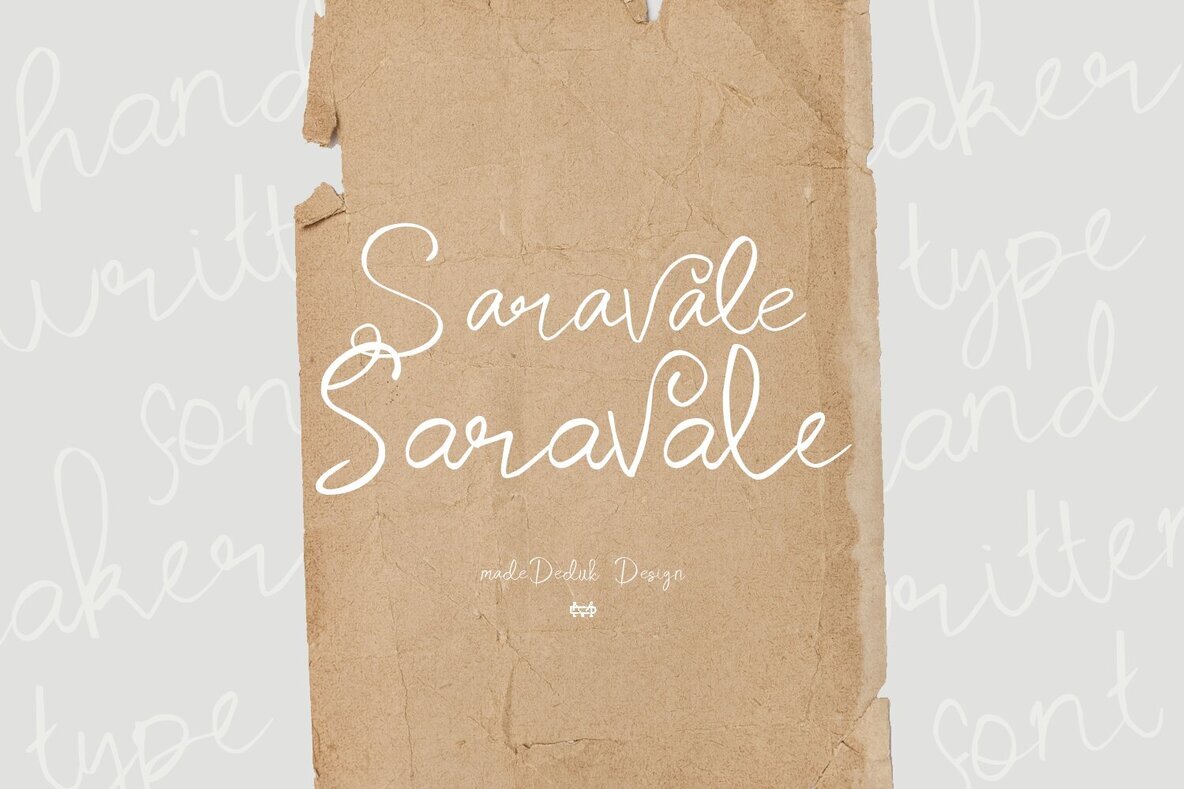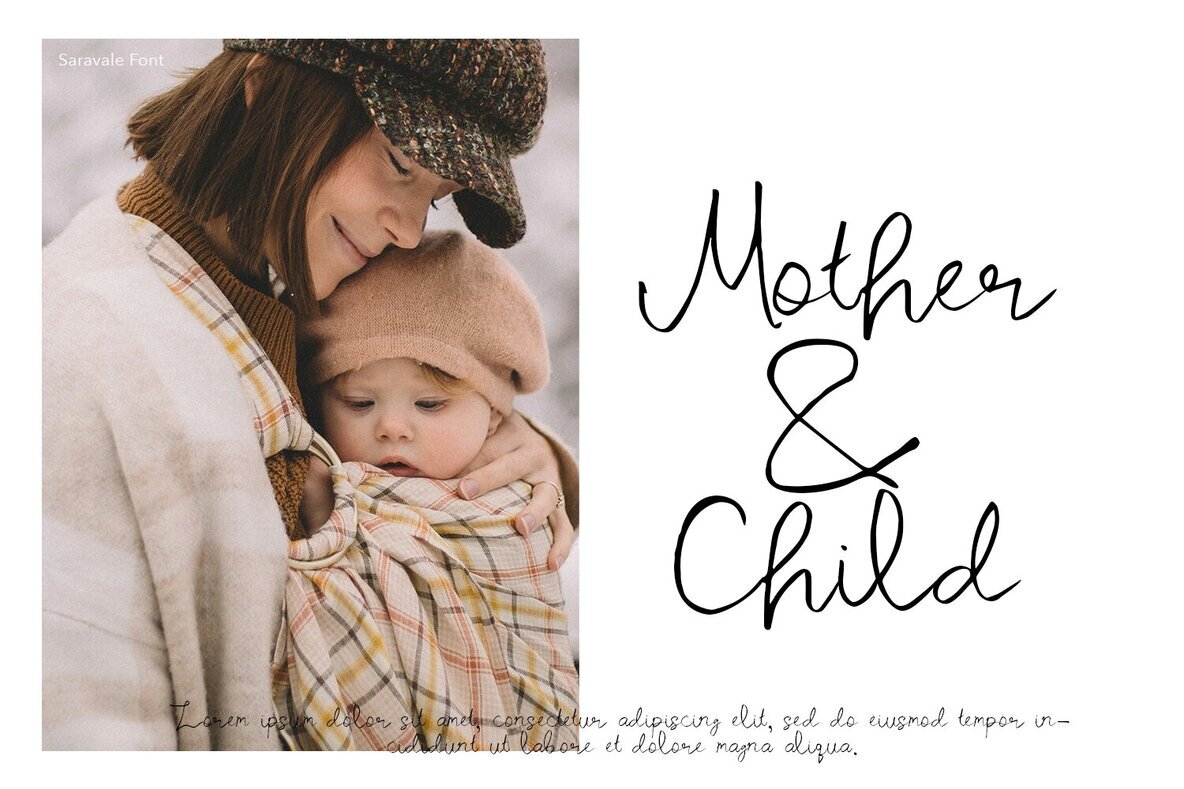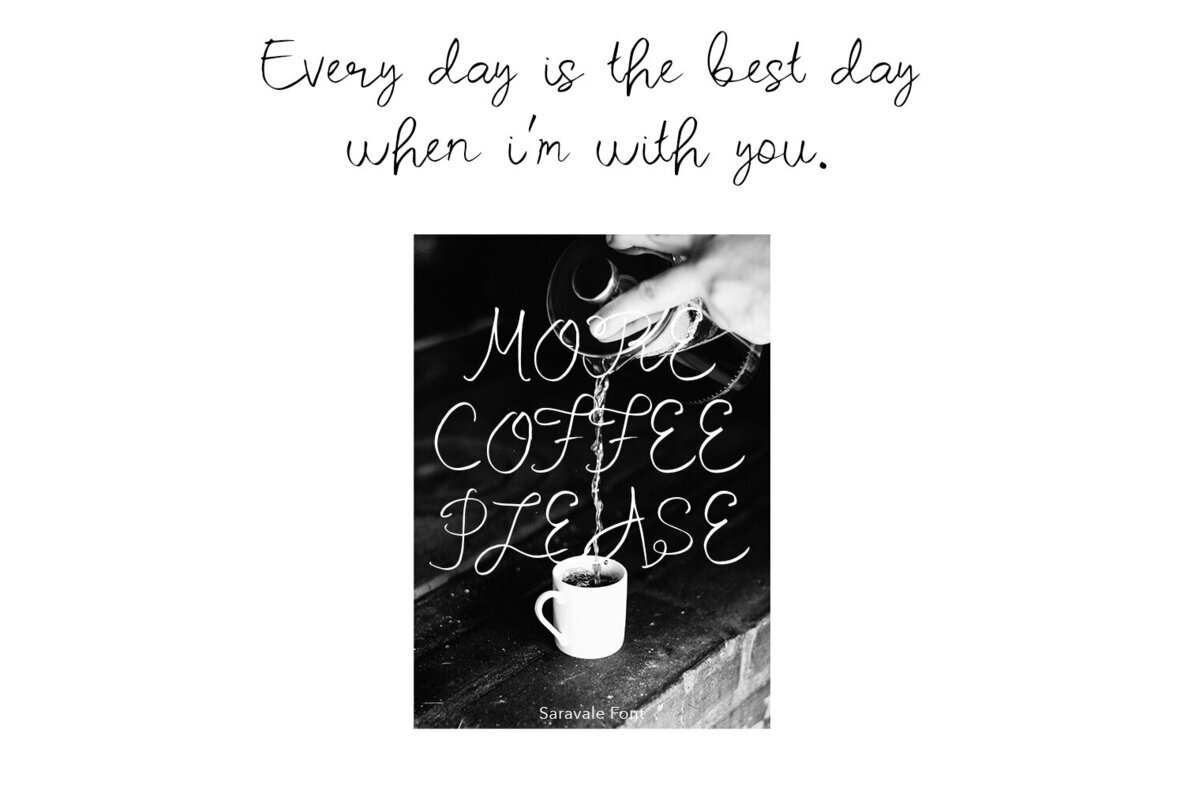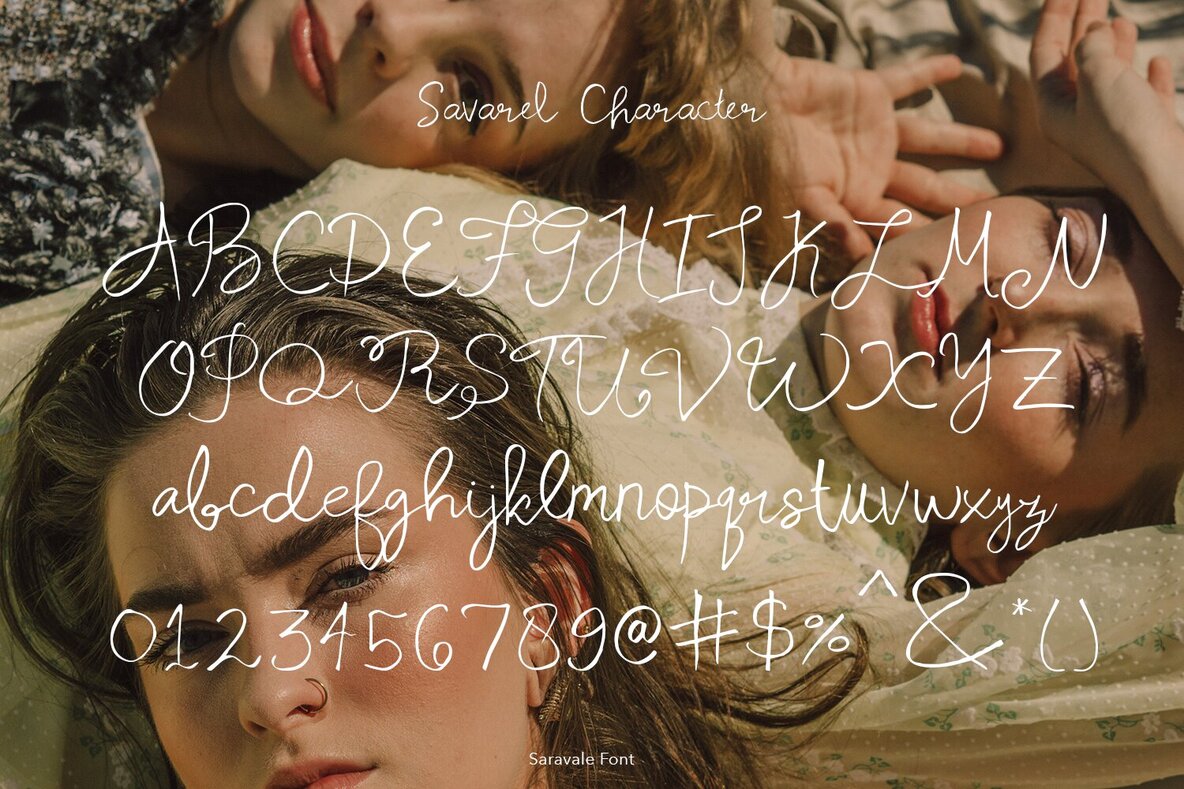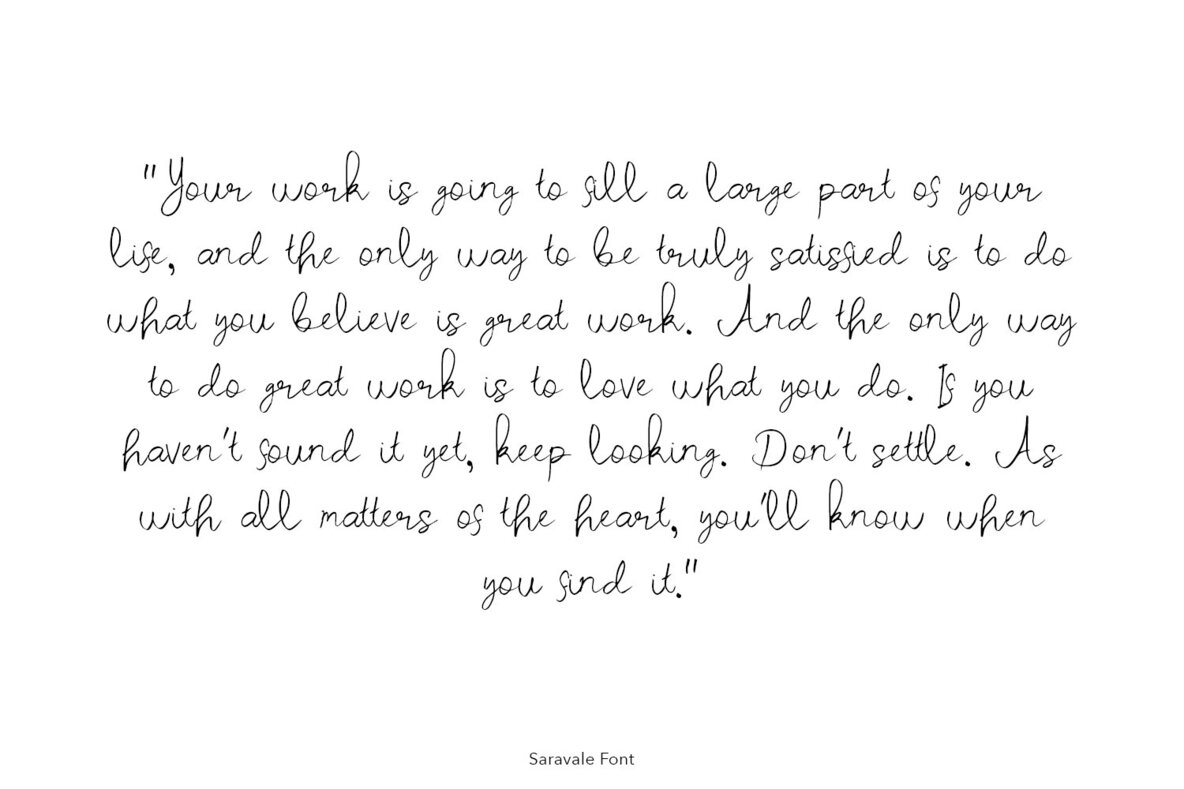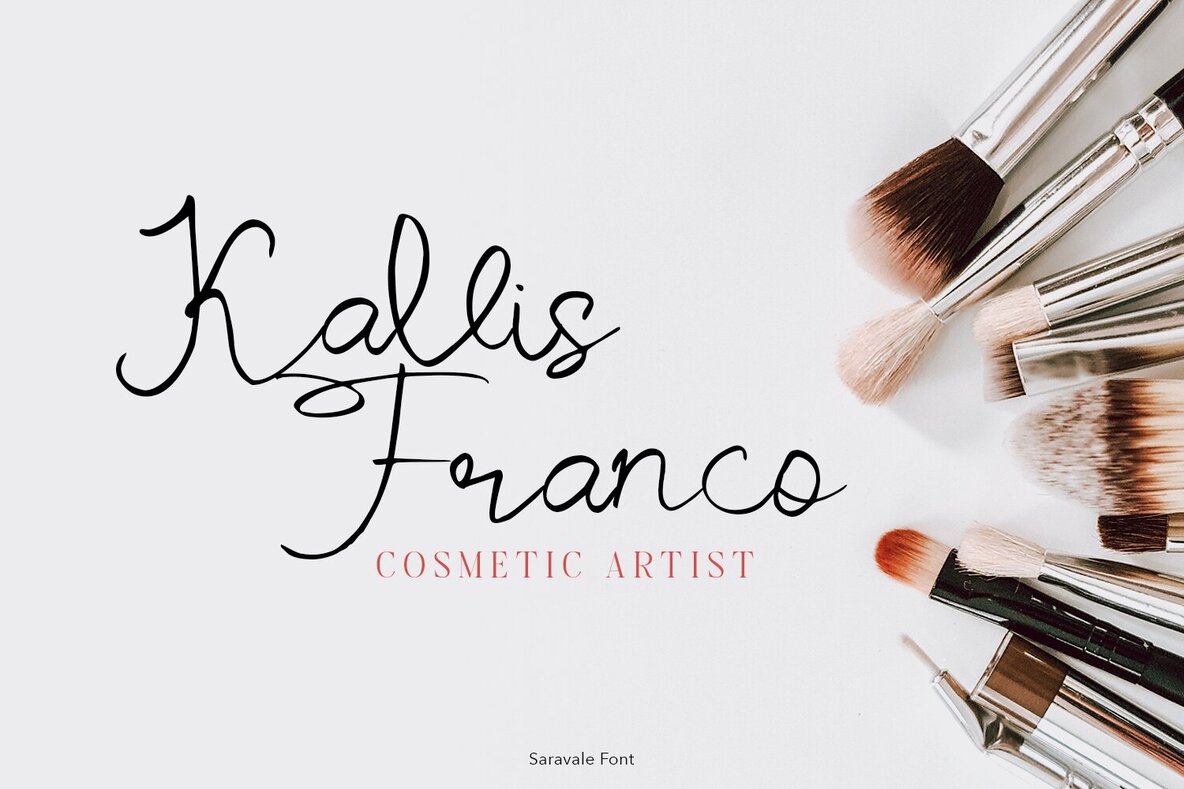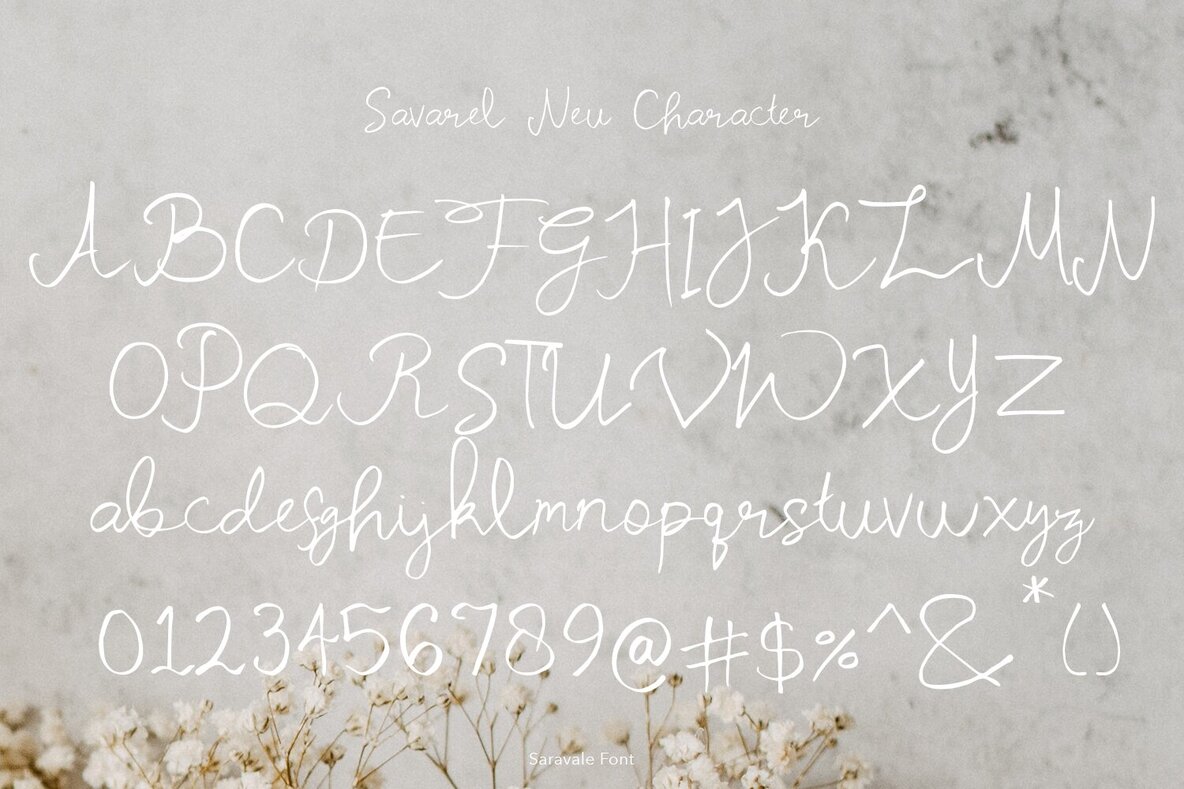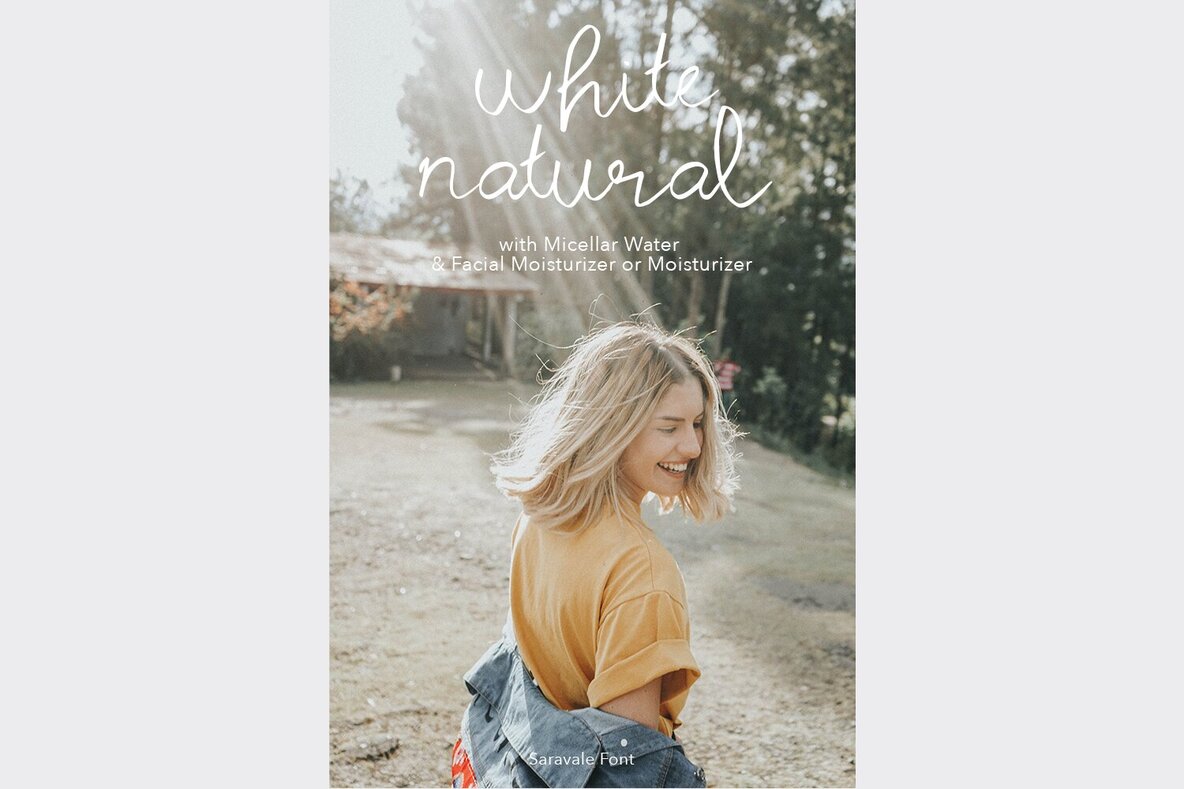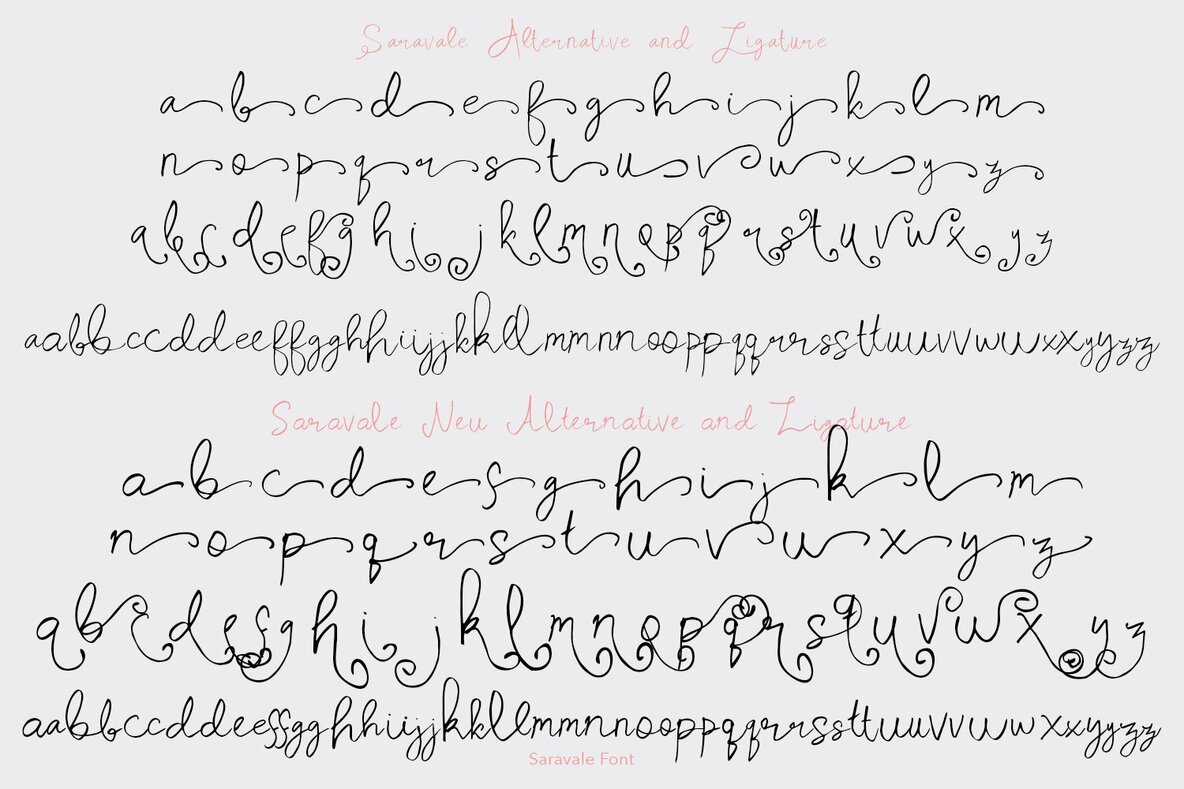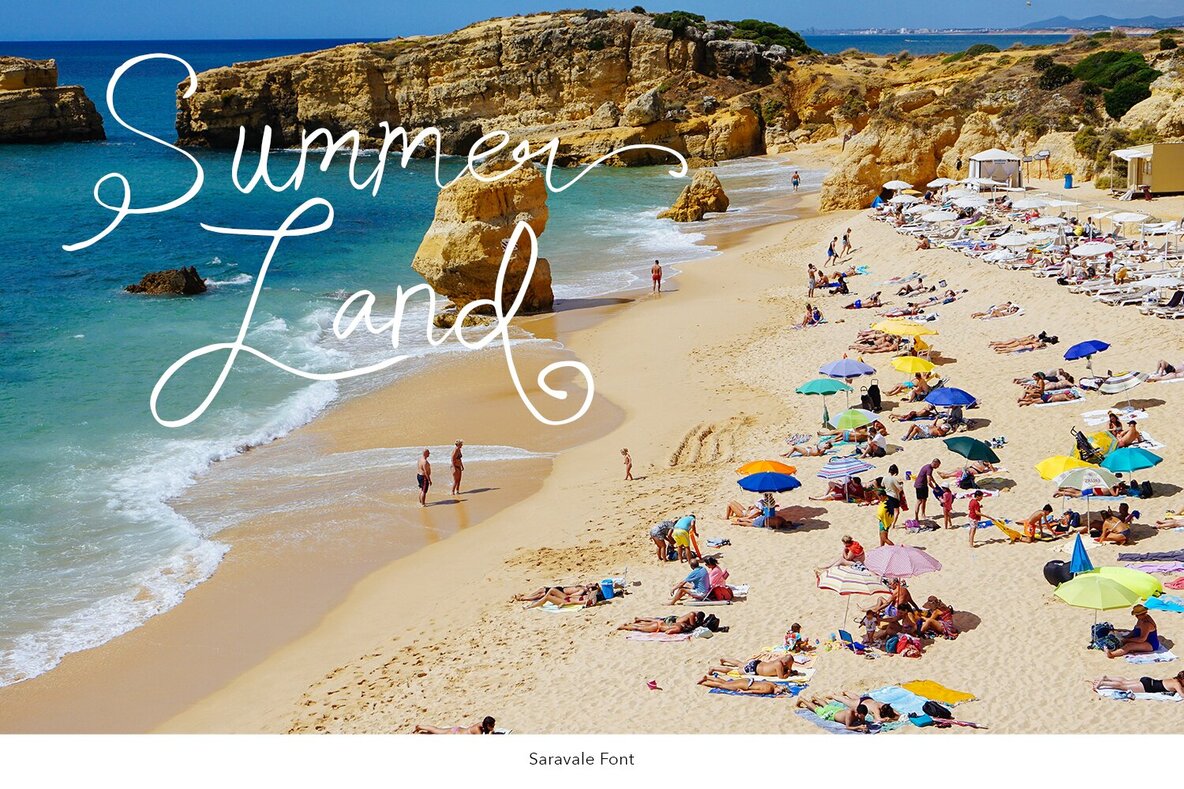
Saravale Font
Saravale
Saravale Neu Medium
Saravale and Saravale Neu are realistic handwritten fonts designed to bring a unique, authentic feel to your projects. These fonts feature natural handwritten characteristics, providing an incredible impression for a wide array of design applications.
They also come equipped with ligatures and alternatives, ensuring a handmade appearance that enhances the realism of your typography. Perfect for digital and graphic design projects looking to incorporate a genuine handwritten touch.